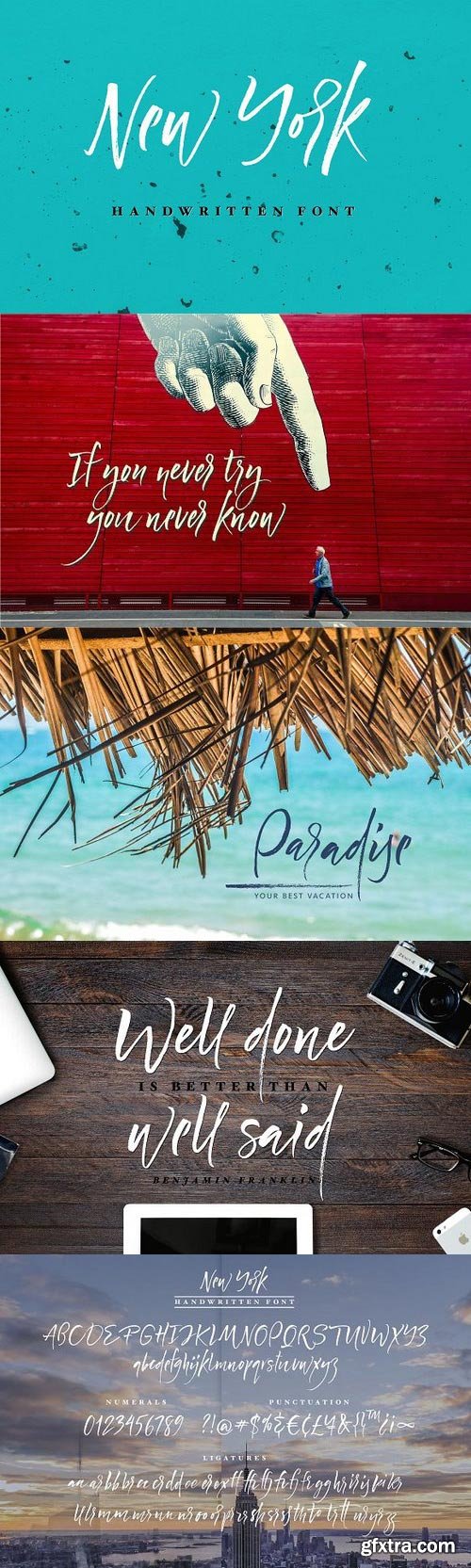
CM - New York Handwritten Font 1050402
Introducing New York handwritten script font A handwritten script font containing upper & lowercase characters, numerals, punctuation and a ton of ligatures.